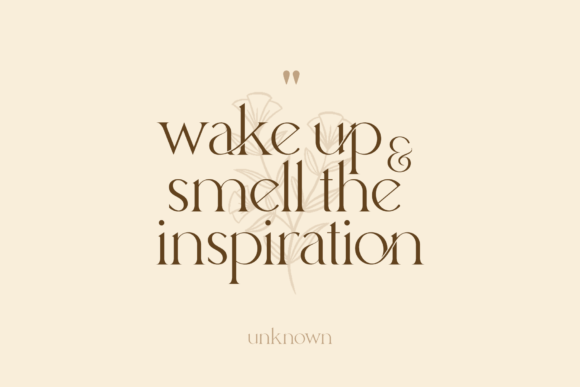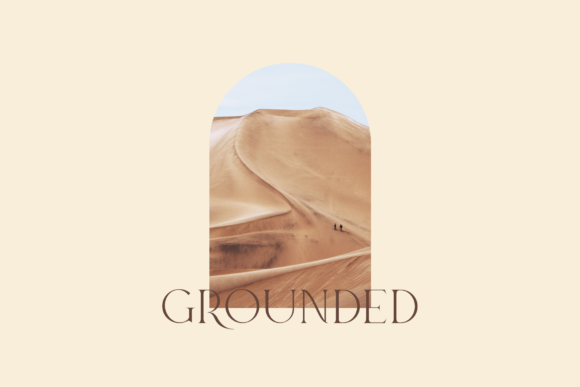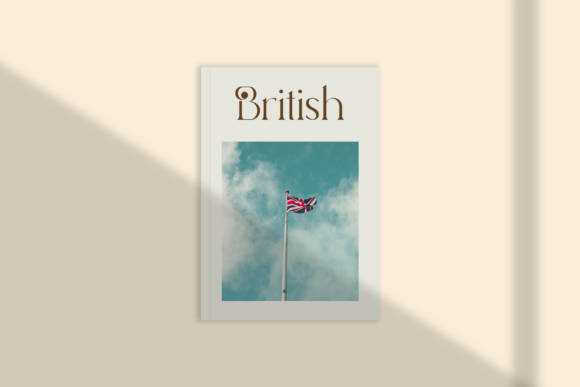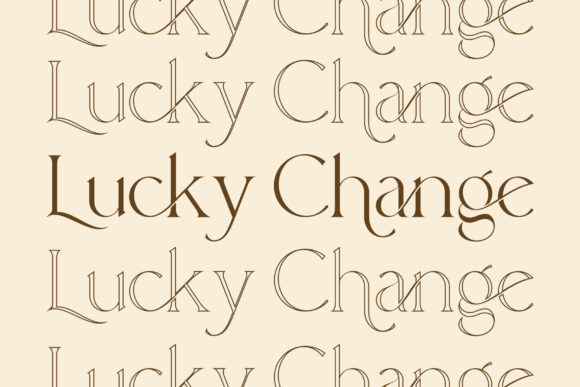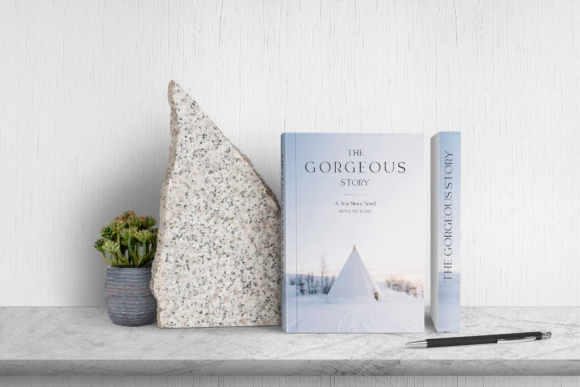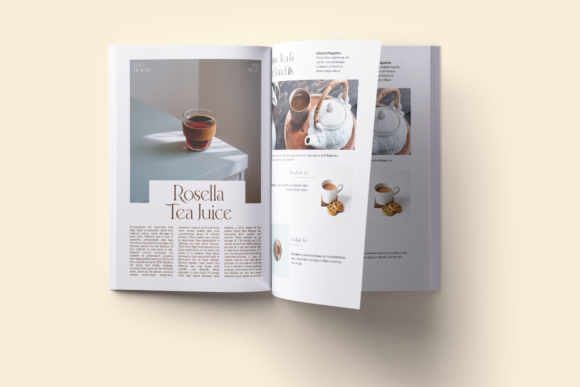
Introduction to Lucky Change Font
You know that moment when you’re working on a creative project and you just can’t find the right font to bring it all together? The words on the page feel flat, the design feels dull, and you’re stuck in a rut. That’s when I stumbled upon the Lucky Change Font, and it was like a breath of fresh air. This elegant serif font is the perfect solution for designers looking to add a touch of luxury to their work.
The Lucky Change Font is a game-changer for any design project, whether you’re working on a brochure, a website, or a social media campaign. Its delicate lines and thin letters give it a sophisticated feel that’s hard to resist. And with its PUA encoding, you can access all of the amazing glyphs and ligatures with ease, making it a high-quality design resource that’s sure to elevate your work.
Key Features of Lucky Change Font
- High-quality design resource: Lucky Change Font is a professional font that offers a unique and creative touch to any project.
- Transparent background: The transparent background of Lucky Change Font allows for easy layering and customization in various design applications.
- High-resolution design: With a resolution of 300 DPI, Lucky Change Font is perfect for high-quality print projects, such as business cards, posters, and brochures.
- Unique characteristics: The font features a distinctive, hand-drawn style that adds a personal touch to any creative project.
- Perfect for designers: Lucky Change Font is an ideal choice for graphic designers, digital artists, and anyone looking for a high-quality, free design resource.
Honest Review: Lucky Change Font
What works well is the font’s versatility, allowing designers to easily create visually appealing and high-quality designs. The transparent background also makes it easy to work with, giving users the flexibility to customize as needed. The font’s modern and sleek design makes it perfect for a wide range of creative projects.
Some of the key features of the Lucky Change Font include:
- High-quality design suitable for various creative projects
- Modern and sleek design aesthetic
However, there are a few limitations to consider: ⚠️ The font may not be suitable for very small text sizes, and it’s not as extensive as some other font libraries. Additionally, it may require some tweaking to achieve the desired look.
Overall, I’m quite impressed with the Lucky Change Font and would definitely recommend it to fellow designers. It’s a great resource to have in your toolkit, especially for those on a budget or working on a tight deadline. ✨
Tips for Getting the Most Out of Lucky Change Font
For a high-quality design, use Lucky Change Font with a transparent background to create a unique and eye-catching effect. You can also use the font in combination with other design resources to create a cohesive and creative project.
Common Use Cases for Lucky Change Font
Lucky Change Font is perfect for creative projects that require a unique and eye-catching font. Some common use cases include: social media graphics, blog posts, and presentations. The font’s high quality and transparent background make it an ideal choice for designers who want to add a touch of sophistication to their designs.